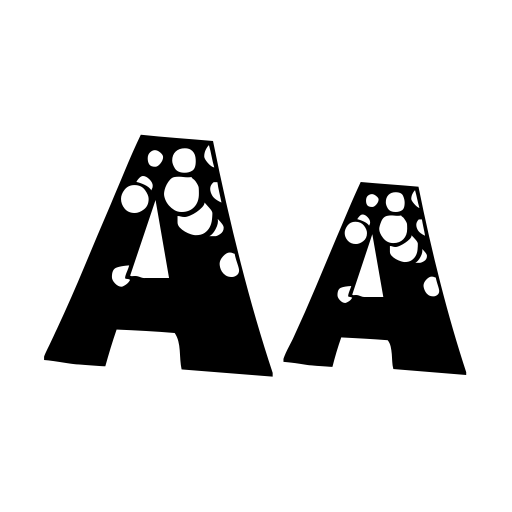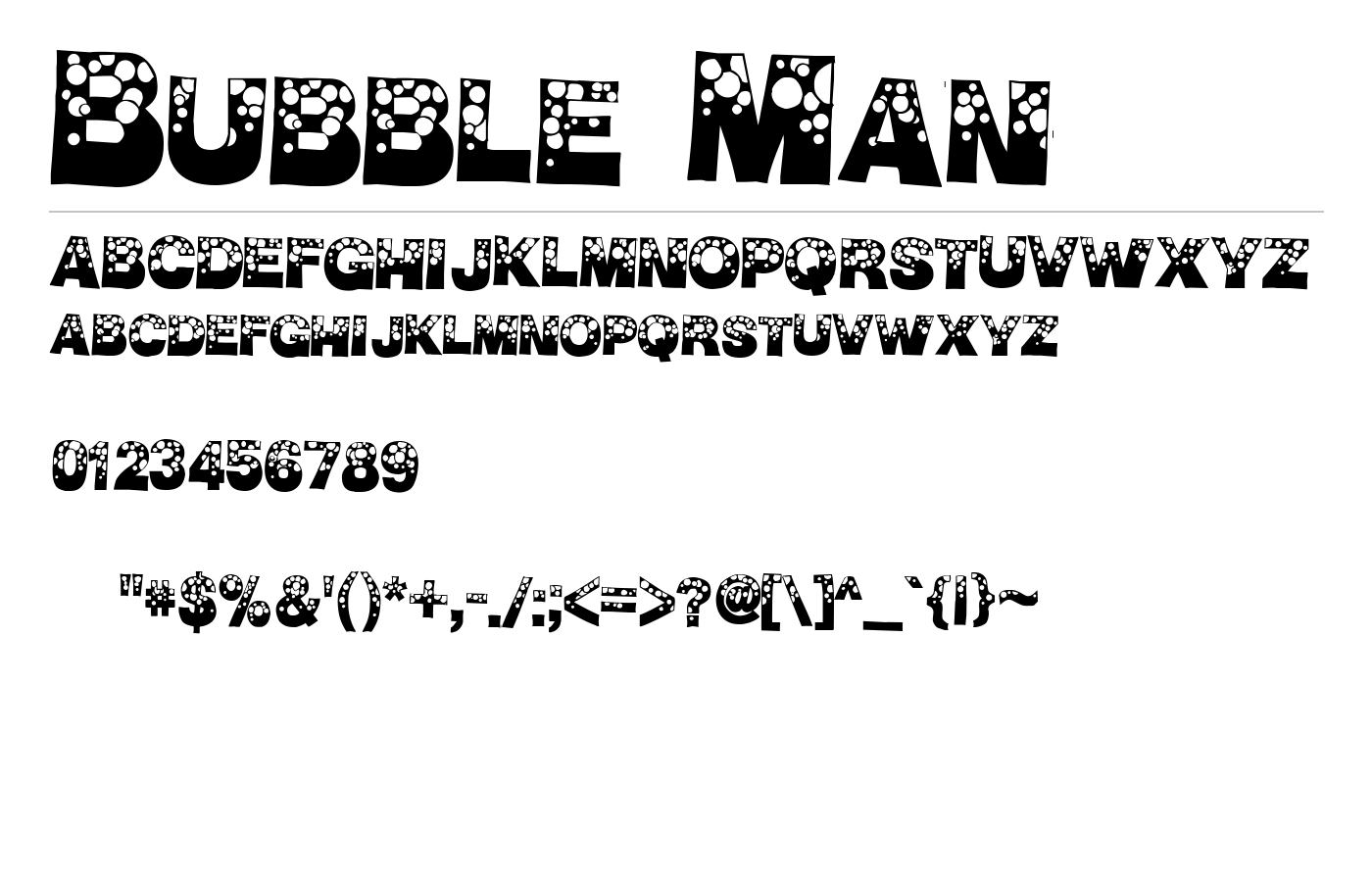
Bubble Man Font is a bold and playful sans serif typeface characterized by its chunky letterforms filled with bubbly, circular patterns that evoke a fun and quirky vibe. This font’s heavy weight and irregular shapes make it ideal for eye-catching headlines, children’s materials, and creative branding where a lively, informal feel is desired. Its distinctive bubble texture sets it apart, making it perfect for packaging, posters, or logos that want to communicate energy and whimsy.
Bubble Man Font
About Bubble Man Font